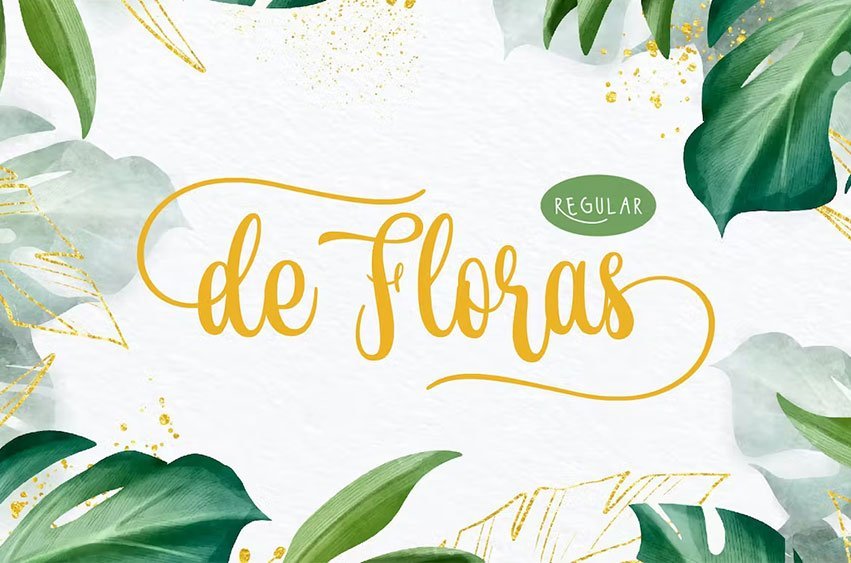
De Floras Regular Font is a lovely and beautiful script typeface that designs manually by hand and love. de Floras comes with a beautiful start and end swash that made who look for the first time is falling in love. Very suitable for designing wedding cards, birthday cards, invitation, greeting, and many more.